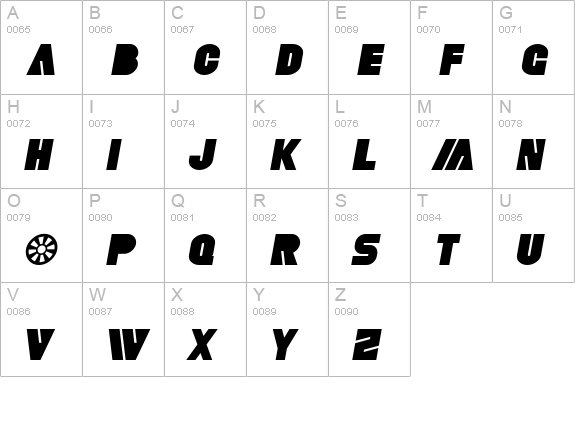
SF Fortune Wheel Italic Font Details
SF Fortune Wheel Italic is a distinctive, italic variant in the SF typeface family \xE2\x80\x94 well suited to design and typography projects.
Introducing SF Fortune Wheel Italic, a captivating and whimsical font that will transport your designs into a realm of endless possibilities. With its playful and elegant curves, this typeface exudes a sense of mystery and charm, making it perfect for projects that require a touch of magic. SF Fortune Wheel Italic is not only visually stunning but also incredibly versatile. Whether you're working on invitations, posters, logos, or any other creative endeavor, this font will effortlessly elevate your design to new heights. Its italicized style adds a sense of movement and dynamism, making each letter a work of art in itself. One of the most remarkable aspects of SF Fortune Wheel Italic is that it is freely available to download at FontsMarket.com. This means that you can enhance your projects with this extraordinary font without any restrictions. The ability to access such a high-quality typeface without any cost is truly a gift for designers and creatives alike. Don't miss the opportunity to incorporate SF Fortune Wheel Italic into your next project. Let its enchanting and free-spirited nature breathe life into your designs, captivating your audience and leaving a lasting impression. Download SF Fortune Wheel Italic today from FontsMarket.com and embark on a creative journey that knows no bounds.